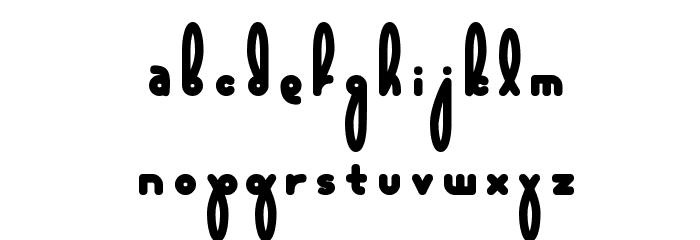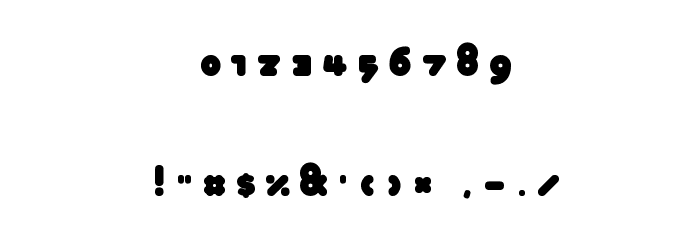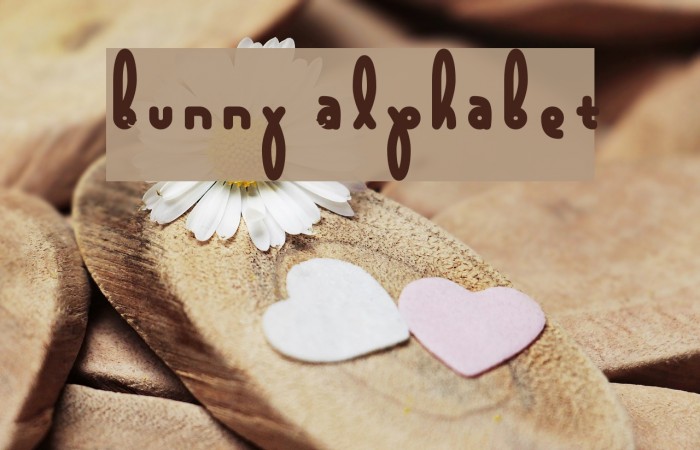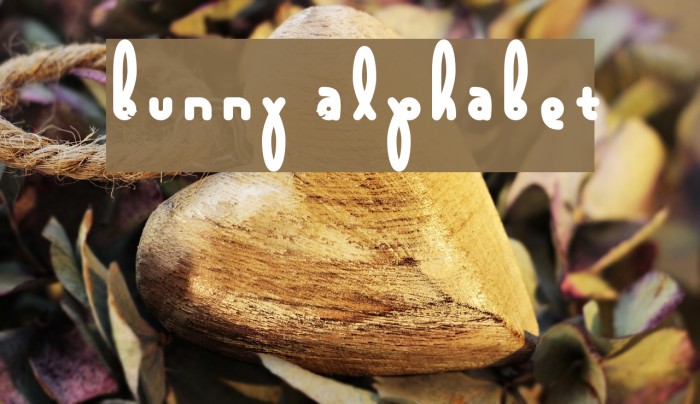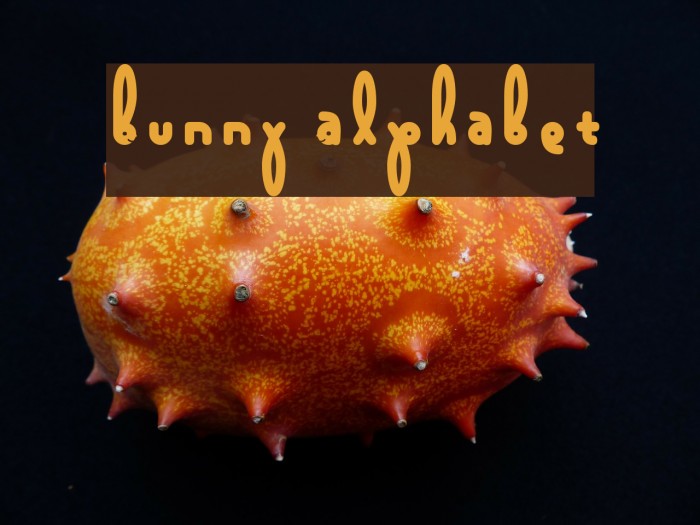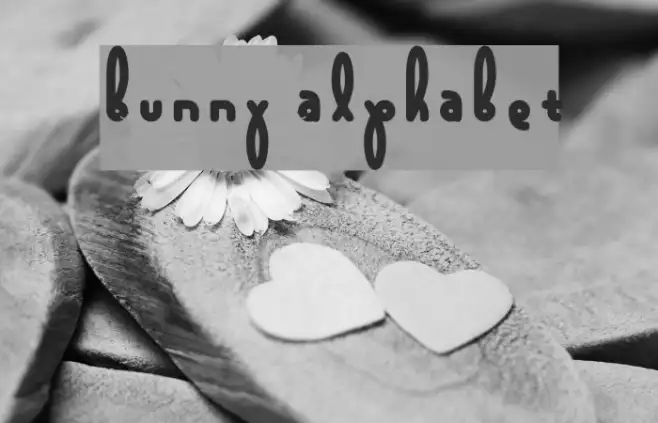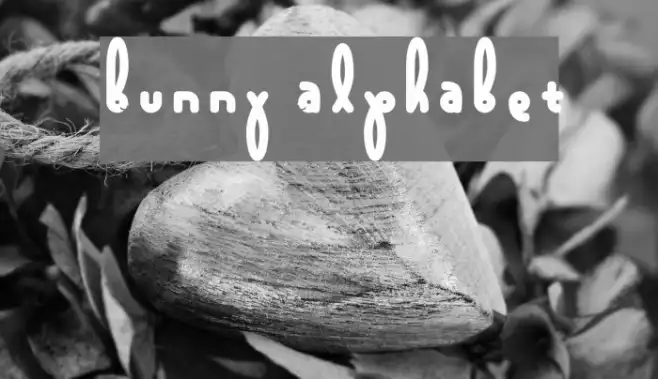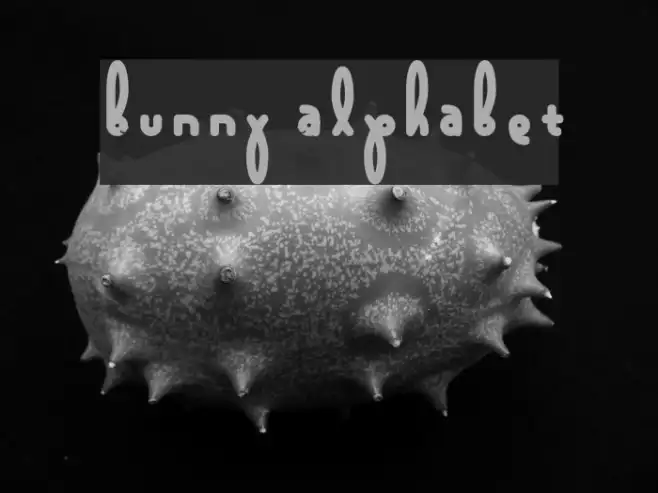
Bunny Alphabet Font
This playful and whimsical font features a unique, rounded design with a bold and friendly appearance. The characters are crafted with a consistent thickness, giving them a uniform look. The lowercase letters have a distinctive looped style, adding a touch of charm and creativity. The uppercase letters maintain the same playful aesthetic, making them perfect for eye-catching designs. The numbers and special characters are designed to match the overall style, ensuring a cohesive look across all text. This font is ideal for projects that require a fun and engaging visual element.
A playful, rounded font with a bold, whimsical style.
- Proposed Projects: Children's books, playful branding, party invitations, greeting cards, and creative posters.
- Overall Style: Playful, Whimsical